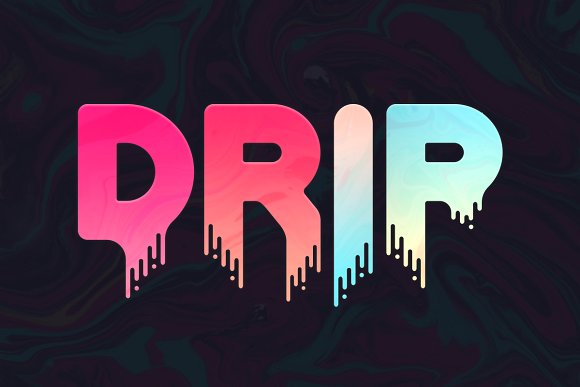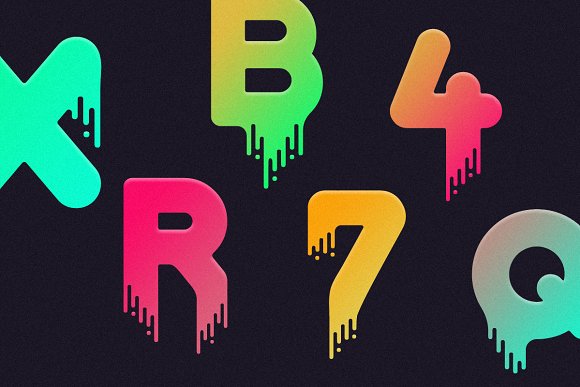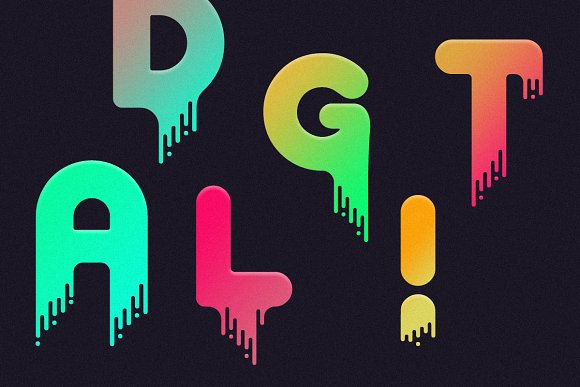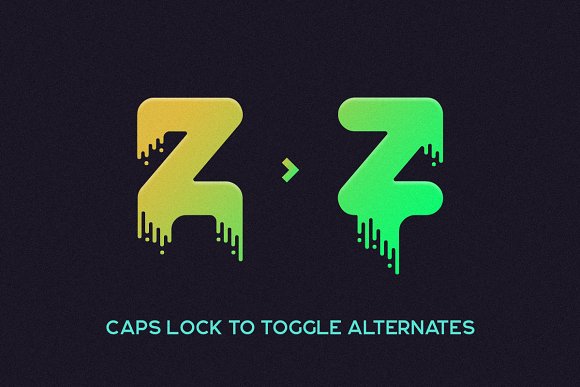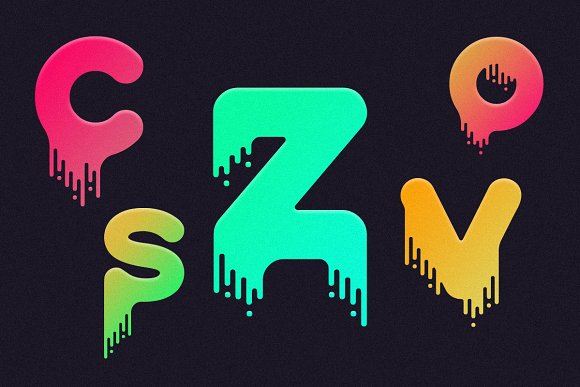
Drip – Liquid Font
Drip is a unique font that uses the trending liquid/fast style. It works great in larger sizes, on posters, book/album covers and as logos. Almost every letter has an alternate version that is toggleable via caps lock.